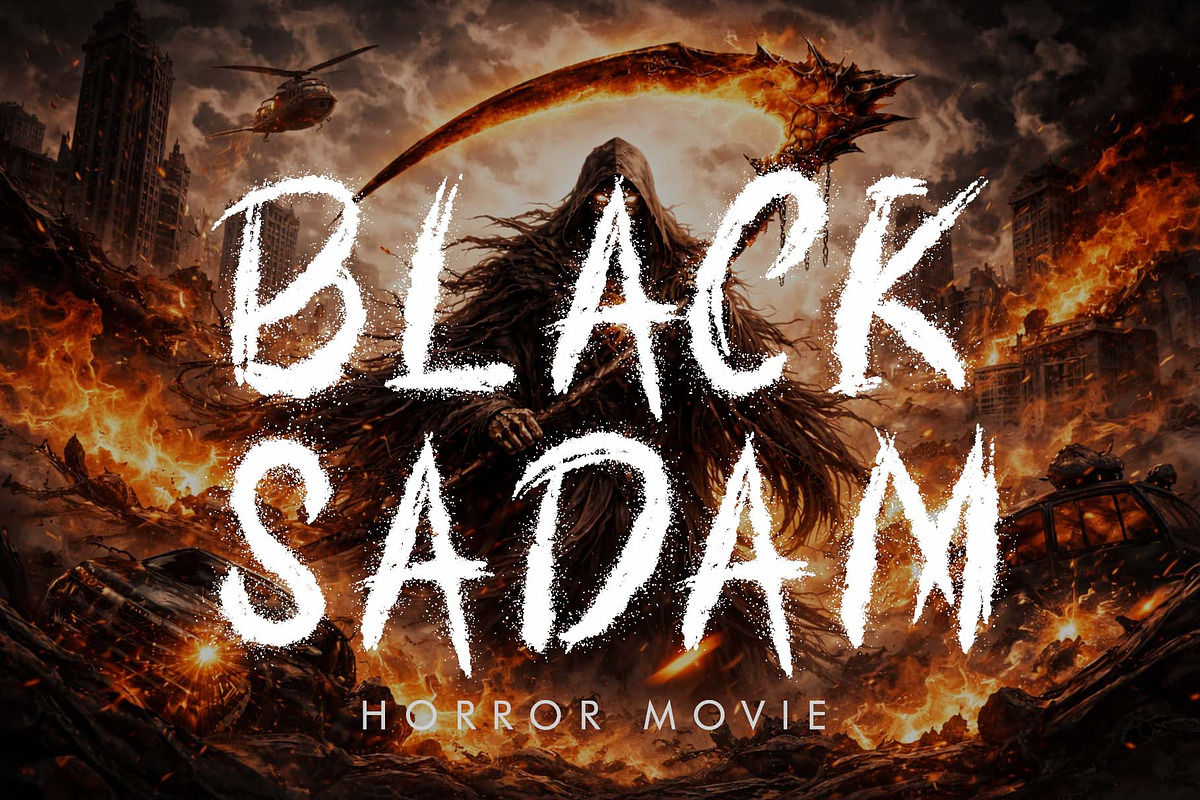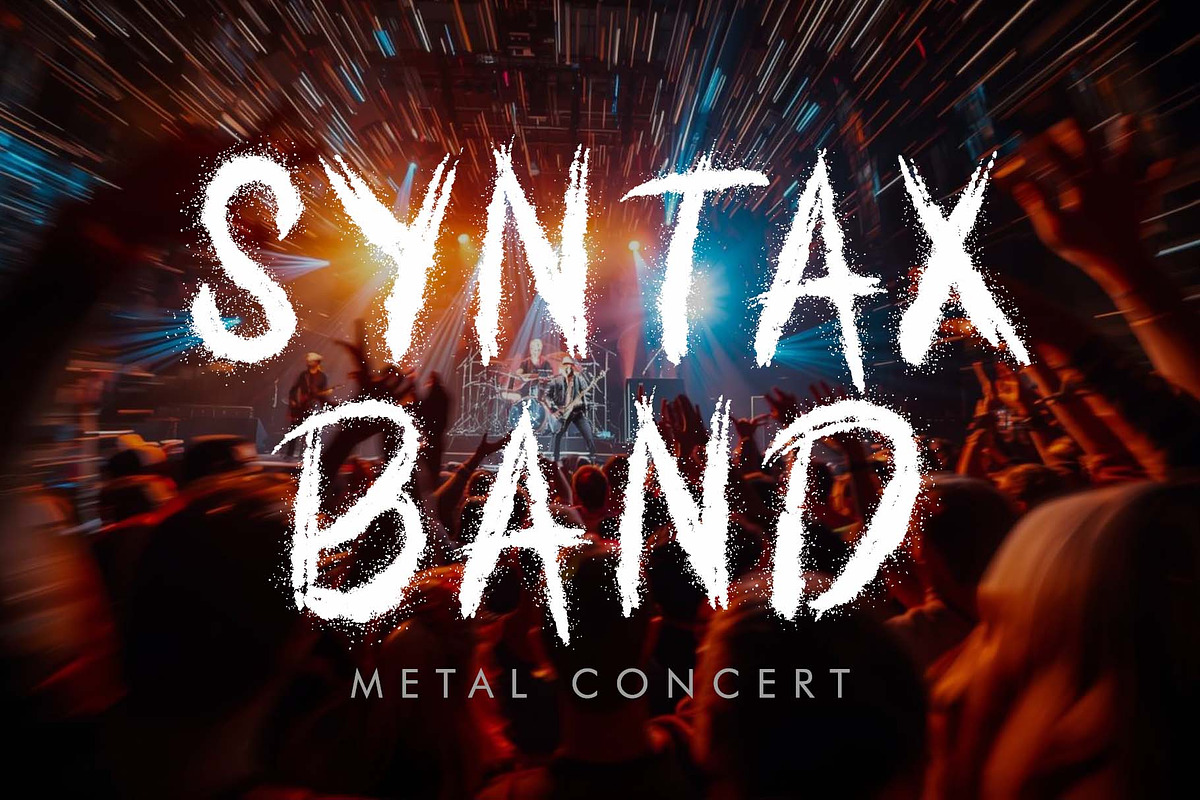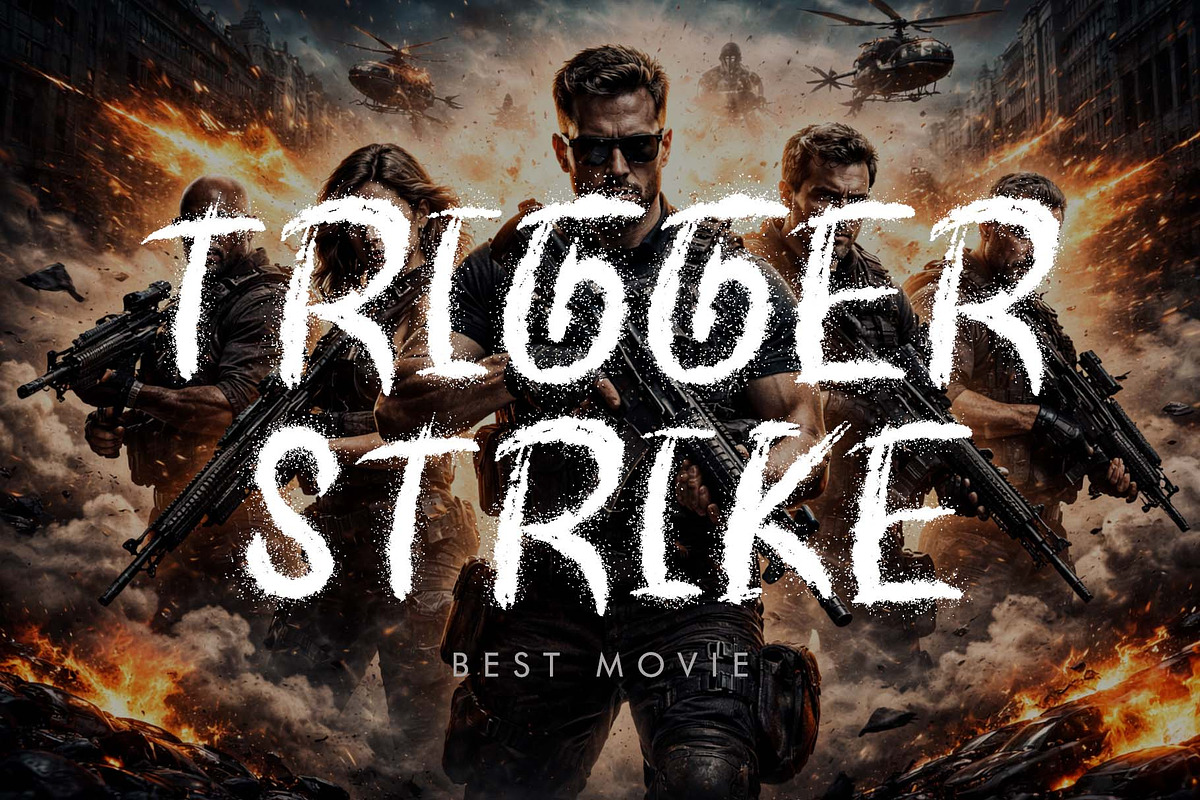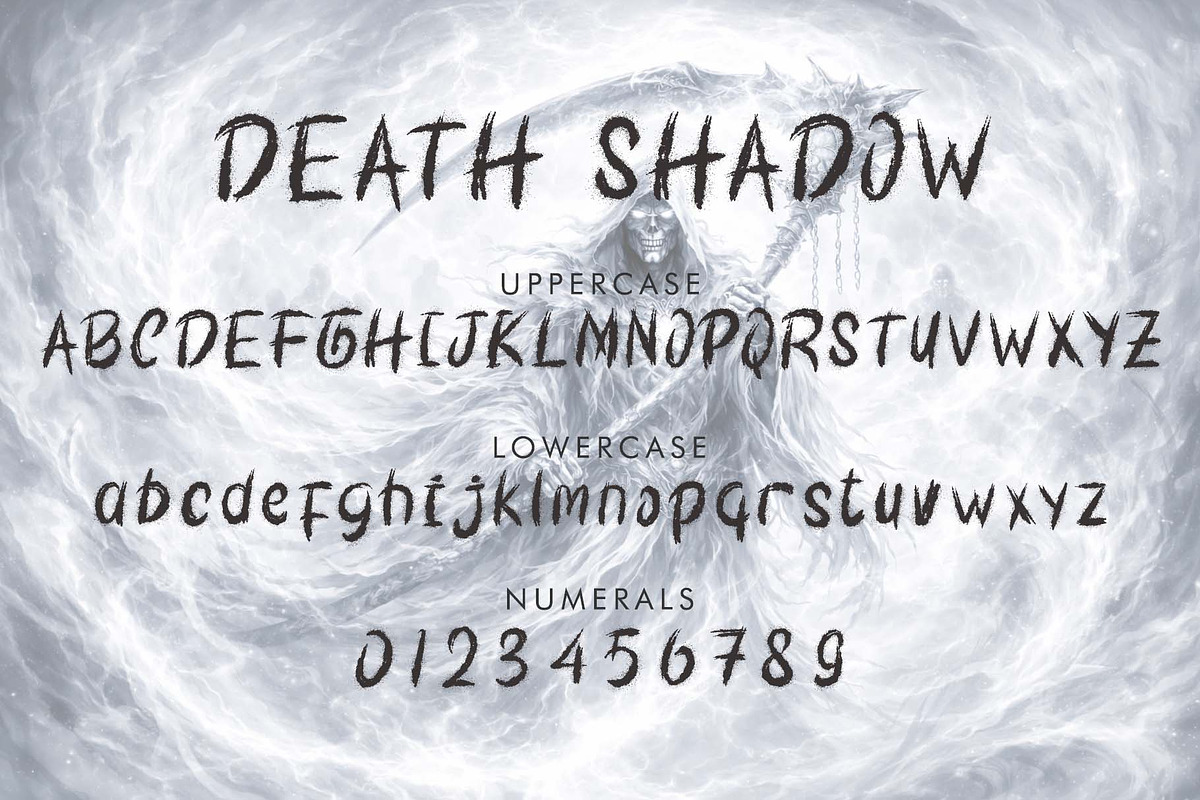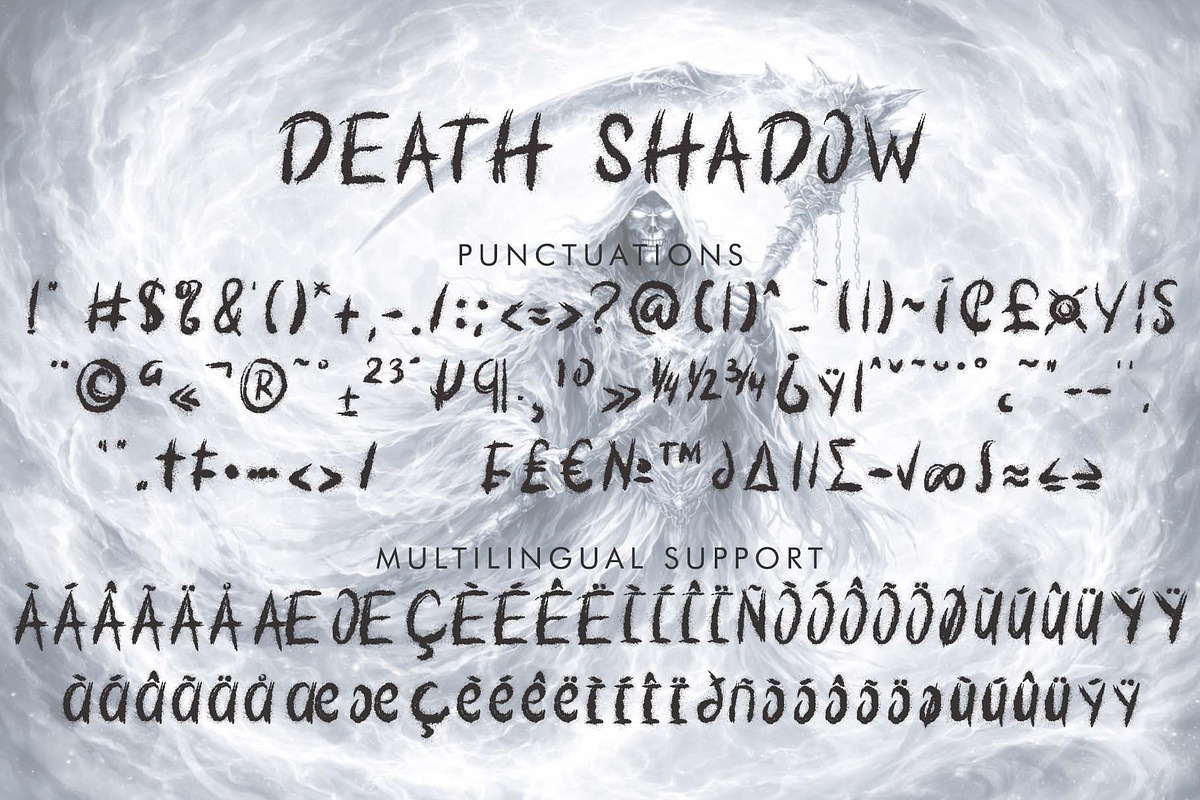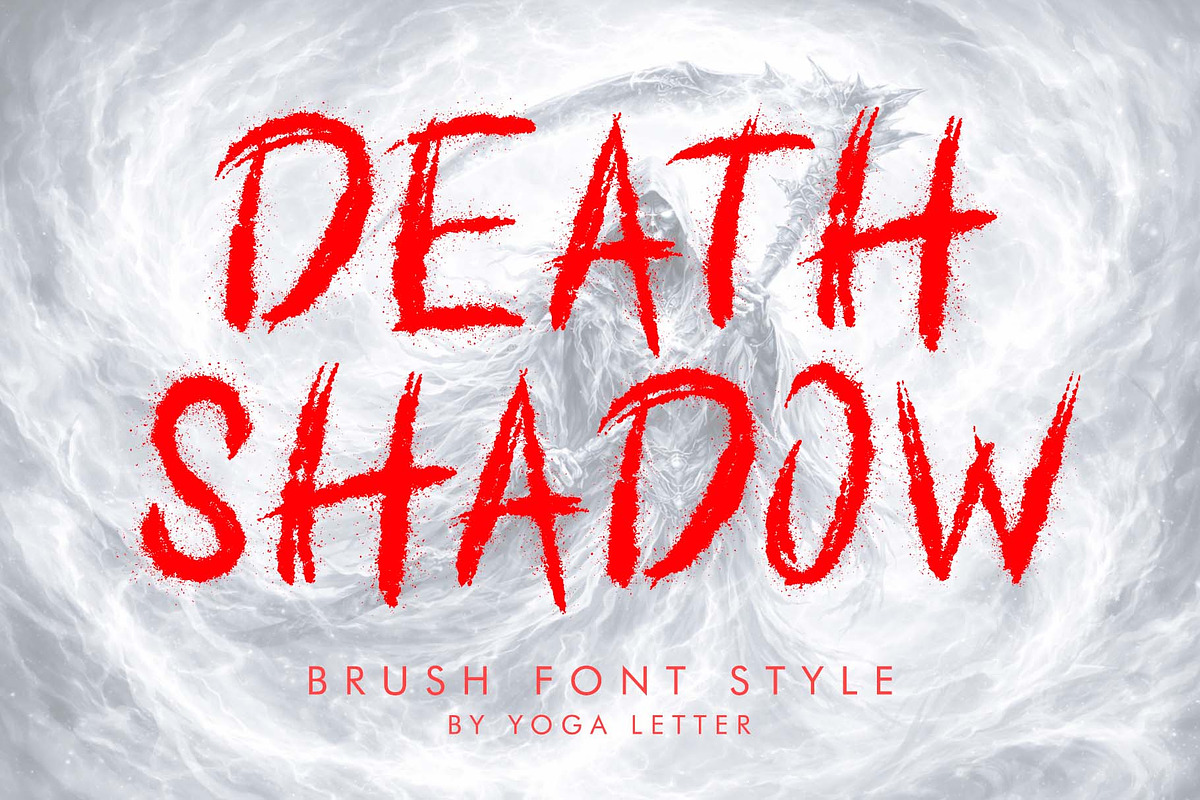
Death Shadow
"Death Shadow" is an elegant and modern brush font. It features uppercase and lowercase letters, numerals, punctuation, and multilingual support. It's perfect for movie titles, horror movies, action movies, tattoos, stickers, banners, posters, metal concerts, logos, prints, branding, banners, Halloween, Valentine's Day, spring, summer, holidays, t-shirts, screen printing, and more.